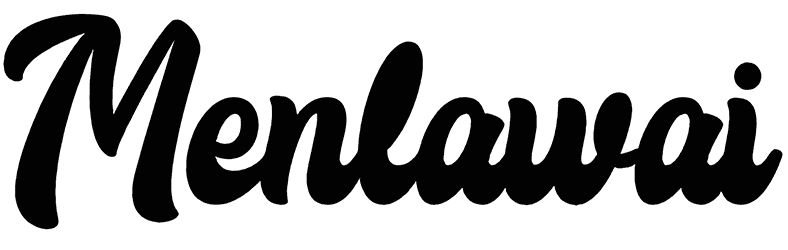
Menlawai Font
None of your designs have to lack friendliness and that’s why Menlawai is here. Just look at those swashes. It’s like this retro font is made to appear on your packaging designs for different food products, right?
But that’s just one of the many perks of knowing a great honey and bee font like this. The tone is only this sweet because the characters look so round and chubby and they also join one another in an adorable cursive style.